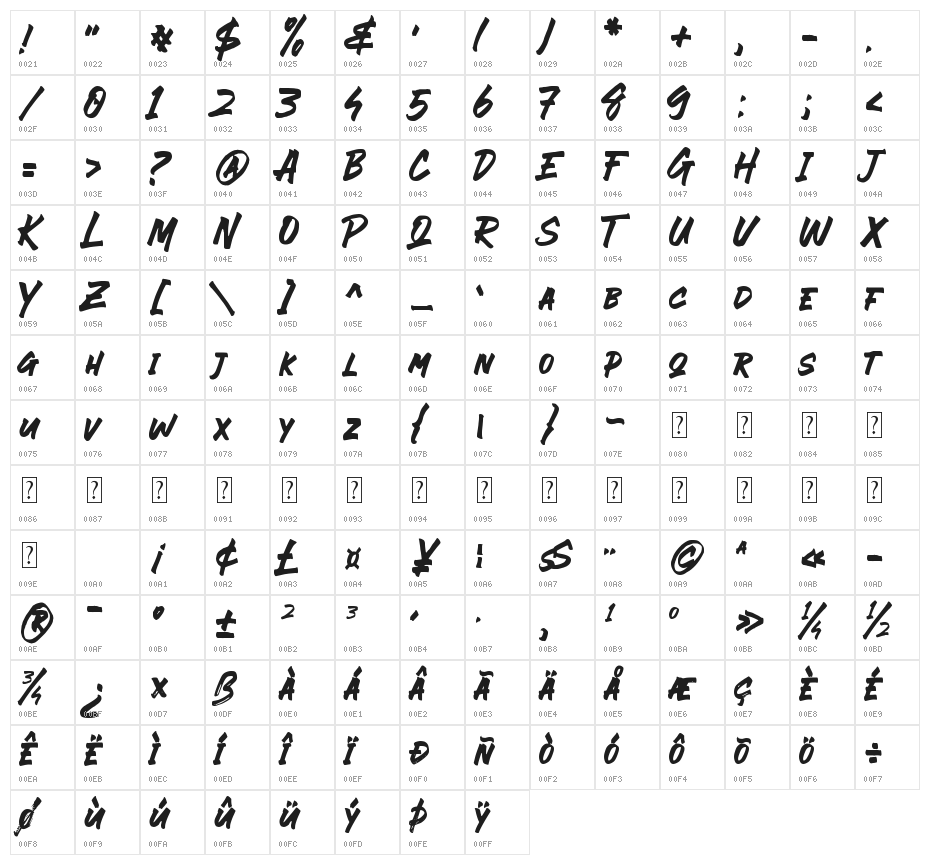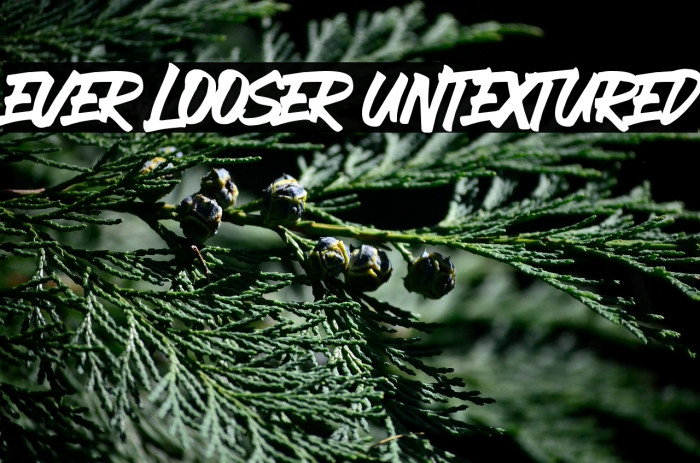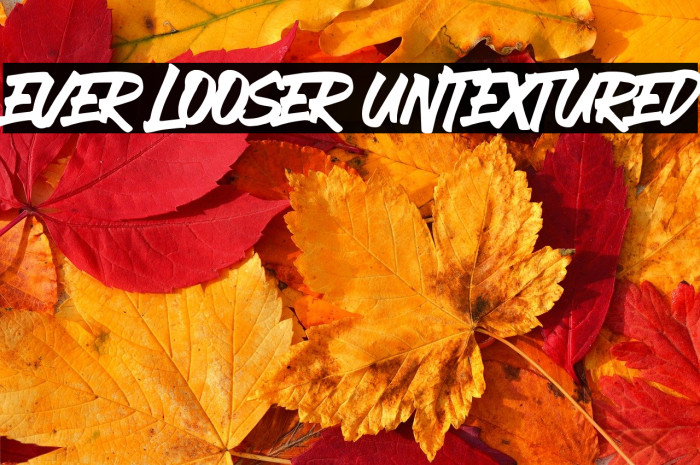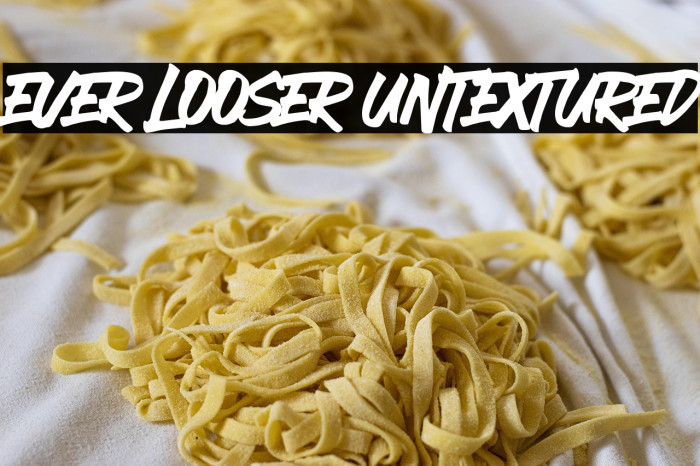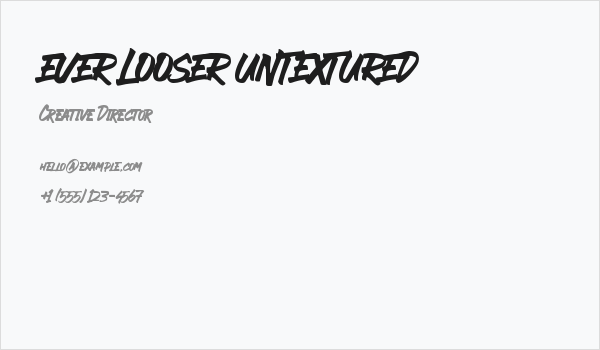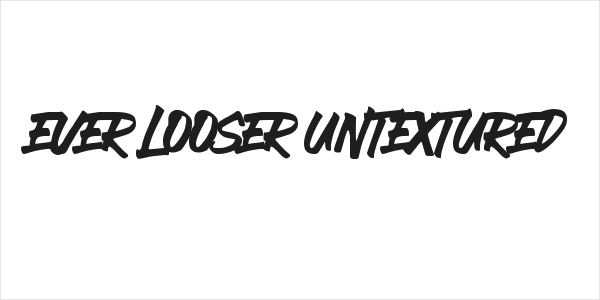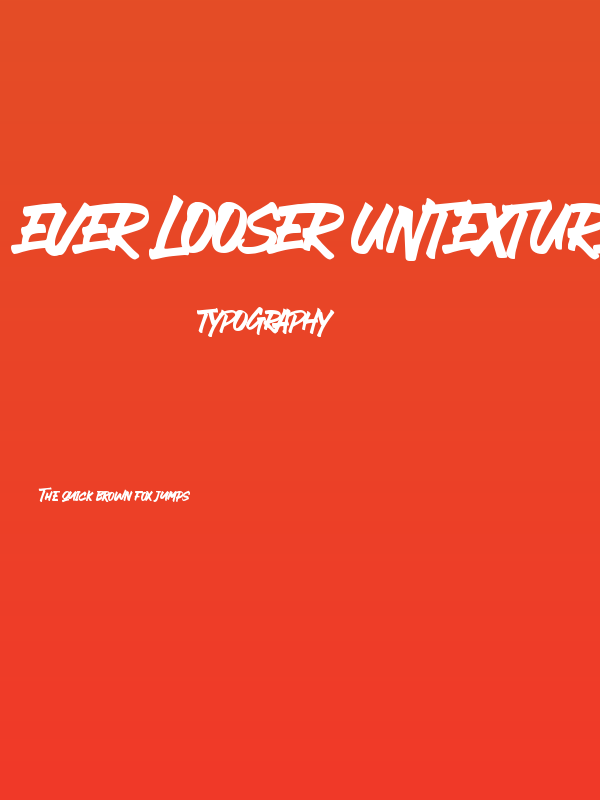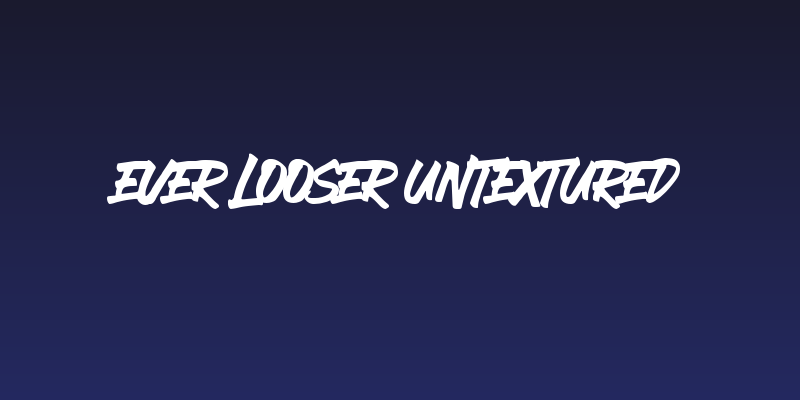
EVER LOOSER UNTEXTURED Font
EVER LOOSER UNTEXTURED Description
This font exudes a bold and dynamic energy, characterized by its thick, brush-like strokes that give it a hand-painted appearance. The letters are slightly slanted, adding a sense of movement and fluidity. The uppercase and lowercase letters maintain a consistent style, with rounded edges and a playful, informal feel. The numbers and special characters follow the same aesthetic, ensuring uniformity across all elements. This font is ideal for projects that require a personal touch or a creative flair, such as posters, branding, and artistic designs.
| Proposed Projects | Ideal for posters, branding, artistic designs, and any project needing a creative, personal touch. |